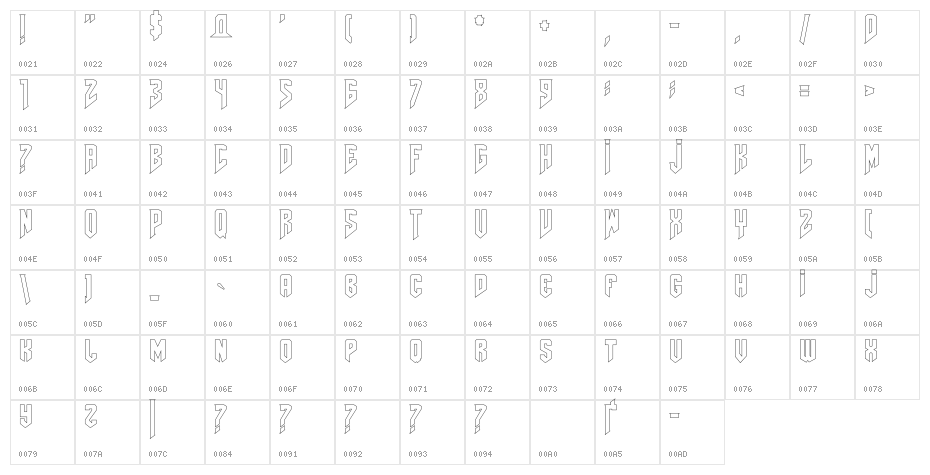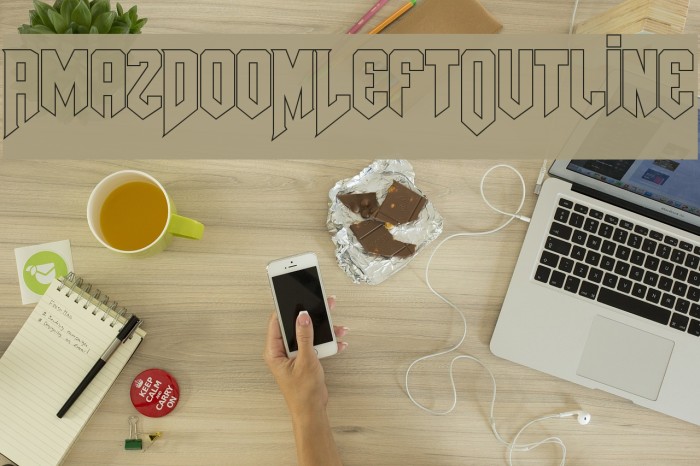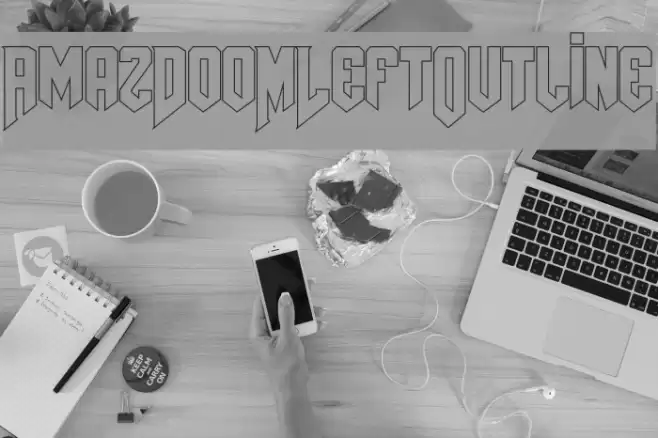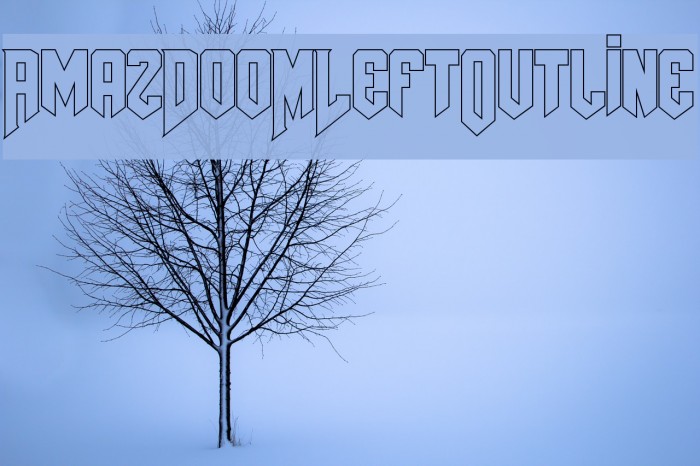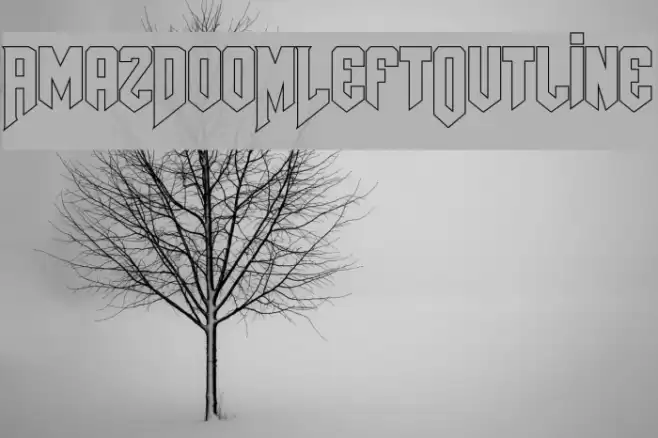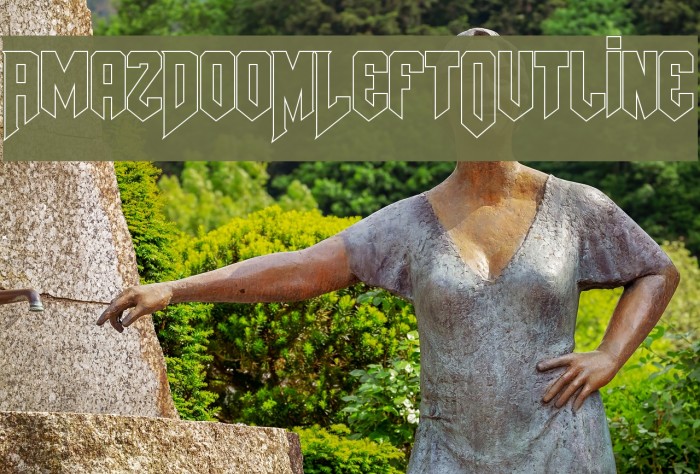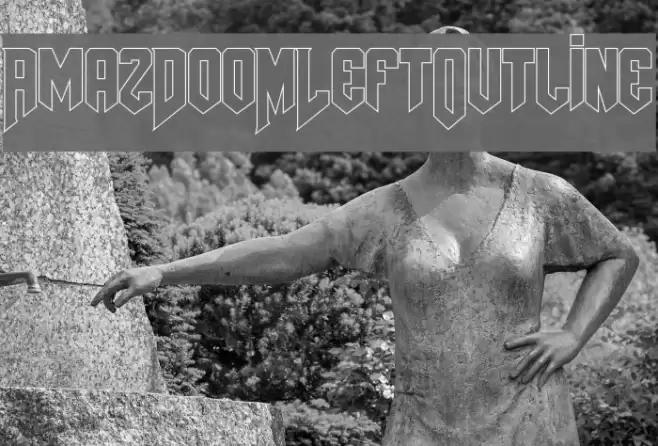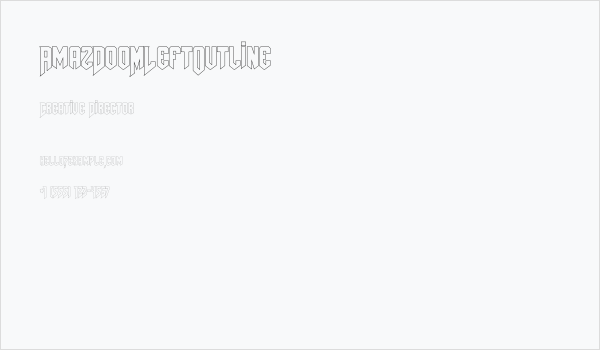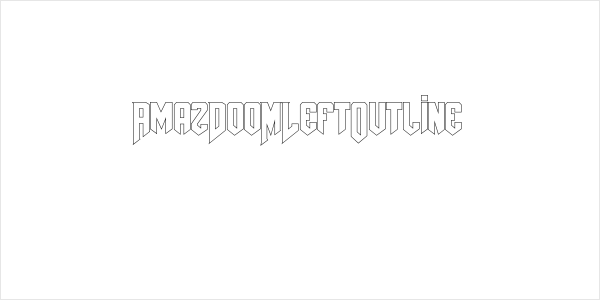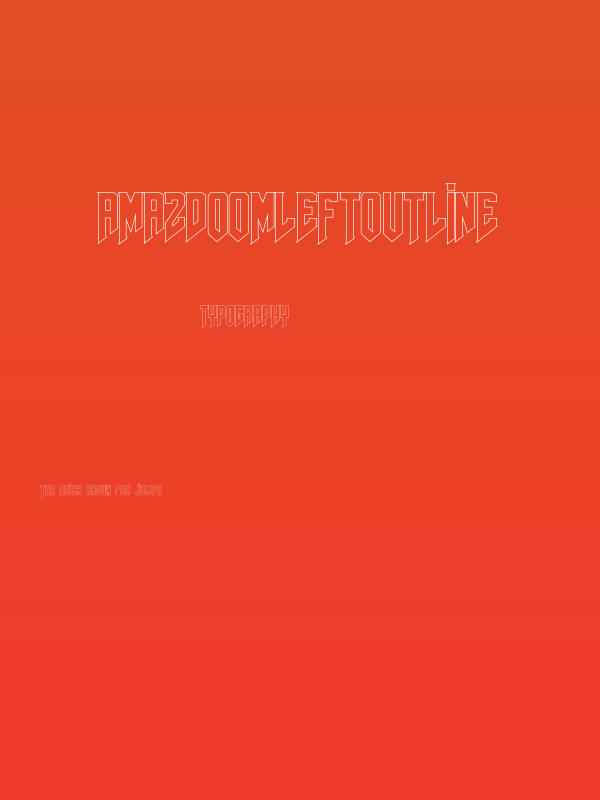
AmazDooMLeftOutline Font
AmazDooMLeftOutline Description
This font features a bold, angular design with a strong geometric influence. The characters are outlined, giving them a three-dimensional appearance that is both striking and modern. The sharp edges and pointed tips of the letters create a sense of movement and energy, making it ideal for attention-grabbing headlines or titles. The uppercase and lowercase letters maintain a consistent style, while the numbers and special characters complement the overall aesthetic. The font's unique outline style adds depth and dimension, making it stand out in any design project.
| Proposed Projects | Ideal for video game titles, posters, album covers, and branding that requires a modern, edgy look. |